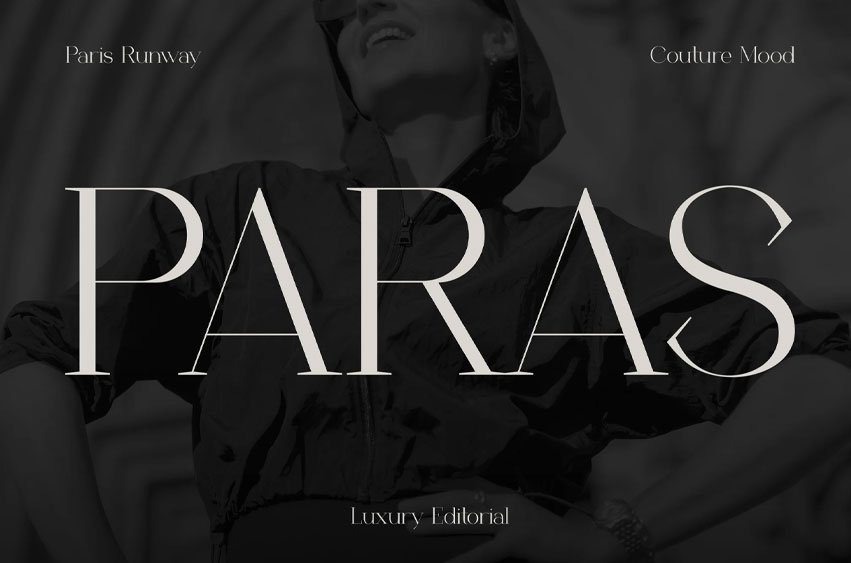
Paras Font is a refined high-contrast serif crafted for fashion branding, editorial layouts, and elegant visual storytelling. With delicate curves, sharp terminals, and balanced proportions, it creates a graceful yet confident presence. Perfect for magazines, invitations, beauty brands, boutique packaging, and stylish social media campaigns.
Paras adds strong editorial impact to branding, posters, magazine covers, website headers, and packaging design. Its elegant contrast helps designers create polished visuals that feel modern, stylish, and memorable—ideal for brands that want a sophisticated and timeless identity. With multilingual support for 67 languages, Paras helps brands communicate beautifully across international markets while maintaining a consistent and elevated visual identity.
Key Features :
- Elegant High-Contrast Design Thin hairlines and strong vertical strokes create a polished rhythm, helping headlines feel stylish and memorable.
- Perfect for Fashion Branding Ideal for boutiques, magazines, beauty brands, invitation cards, perfume labels, and modern feminine identities.
- Editorial-Ready Style Designed for magazine titles, runway campaigns, social media content, website headers, and promotional posters.
- 67 Languages Supported Reach global audiences with multilingual support that keeps your branding consistent across international markets.
- Readable Yet Expressive Decorative enough for standout display text, yet balanced enough for professional branding systems and presentation layouts.